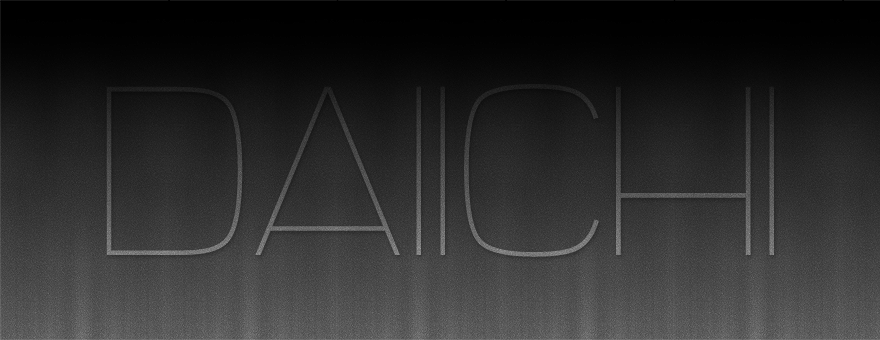
This is a no-frills thin weight title font. It looks great when it's large, and it's ready to help your next project say 'I mean business.' New weights and added characters possibly to come based on inquiry. http://michaelmuranaka.com/daiichi/ ----------------------- For commercial use, please see the font licensing agreement: http://michaelmuranaka.com/font-licensing-agreement/ ----------------------- Check out my new Font Blog to stay up to see when I release new fonts! http://michaelmuranaka.com/category/fonts/ ----------------------- This is free for personal use. Please do not sell, redistribute, or claim ownership of this font. Please DO NOT download this font and redistribute it on another website!!! If you make use of this font, it might be cool if you either credit MuraKnockout Media or Michael Muranaka, or show me how you used it! Enjoy! |